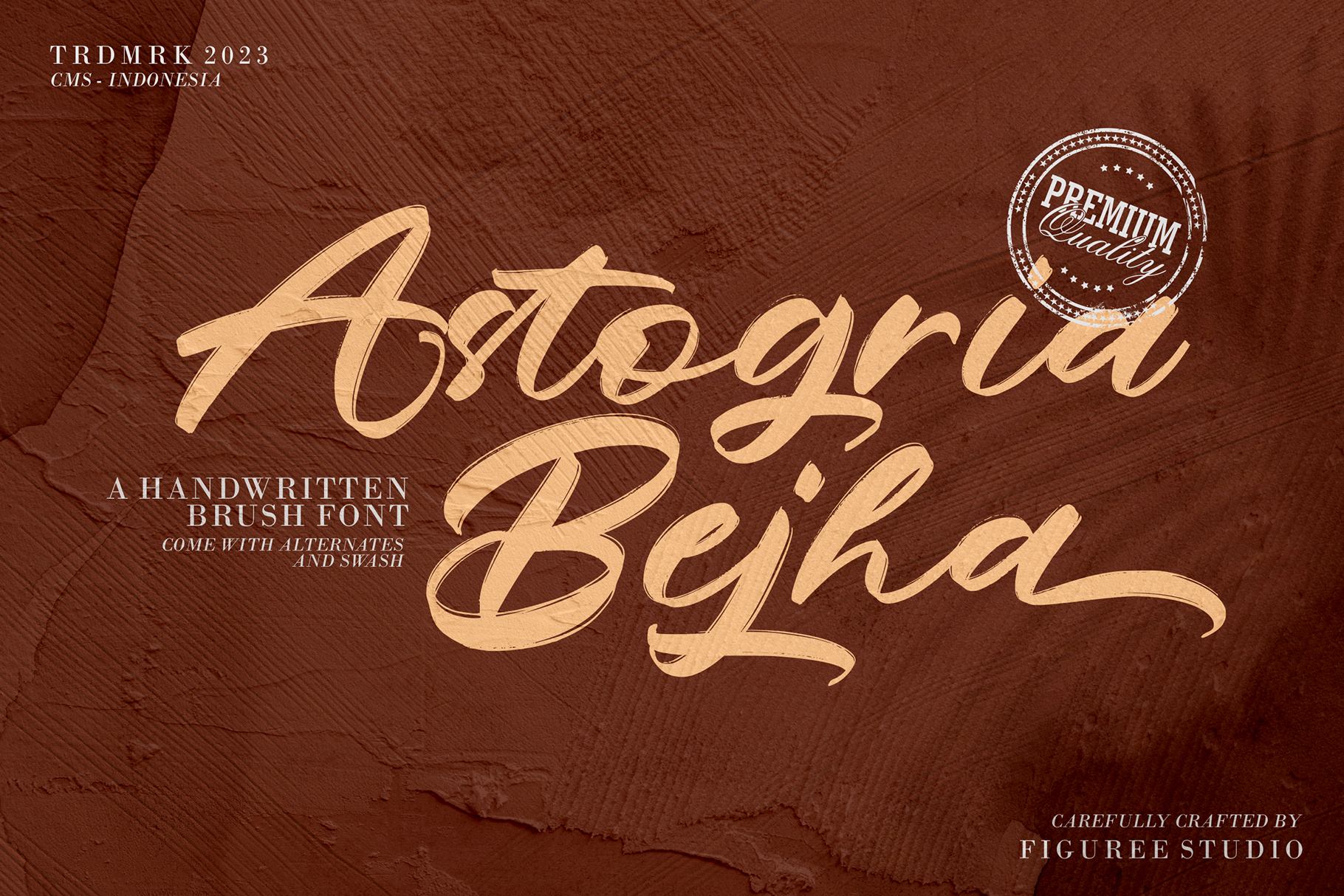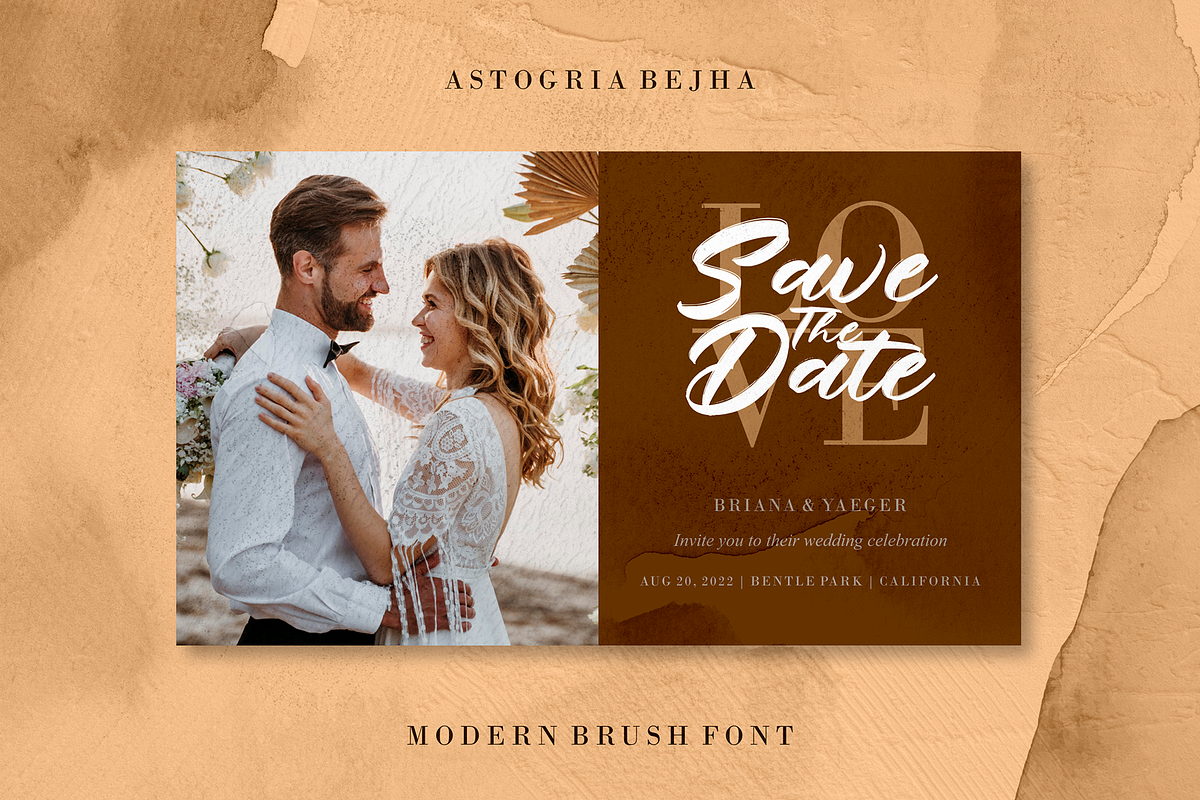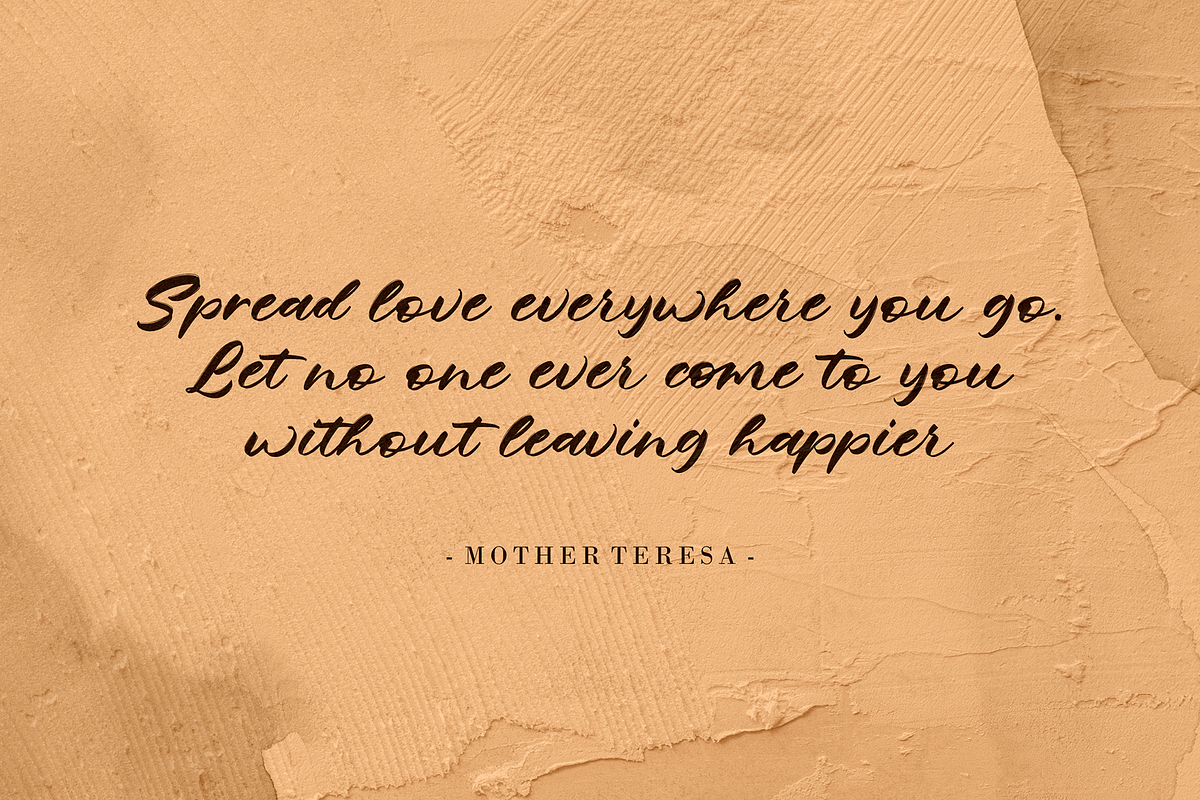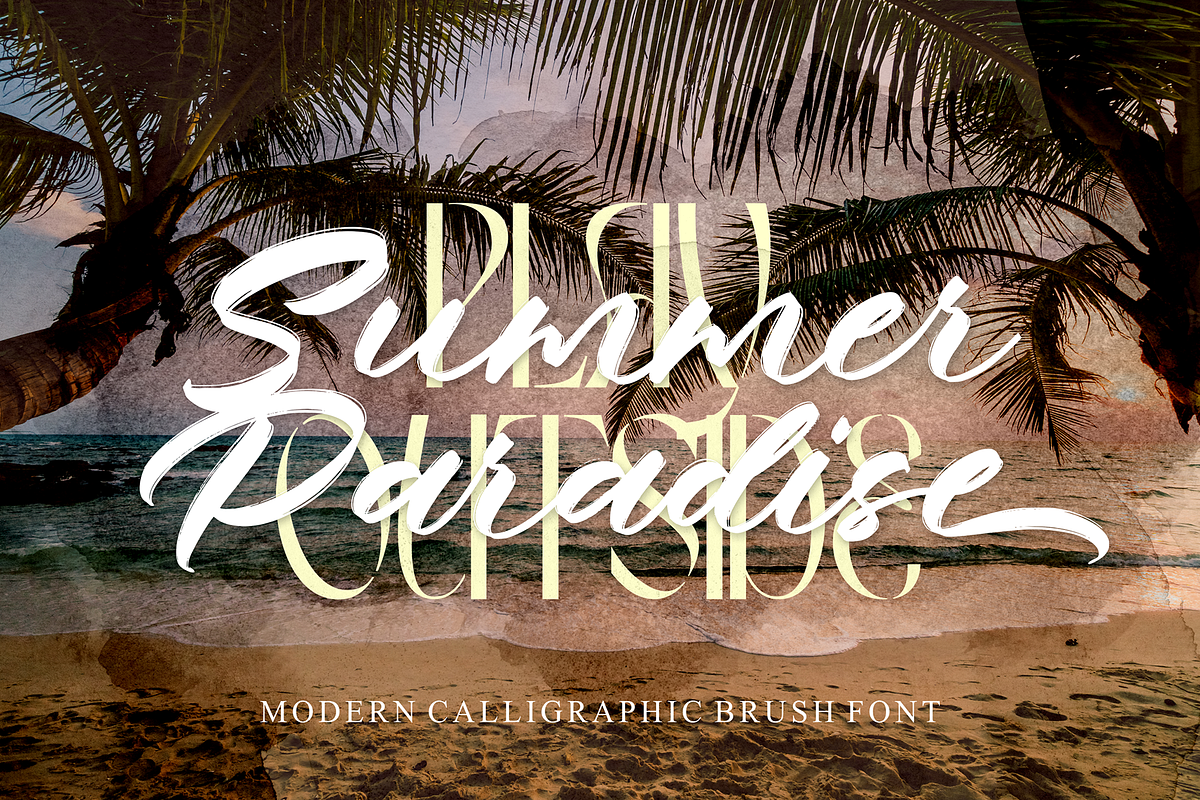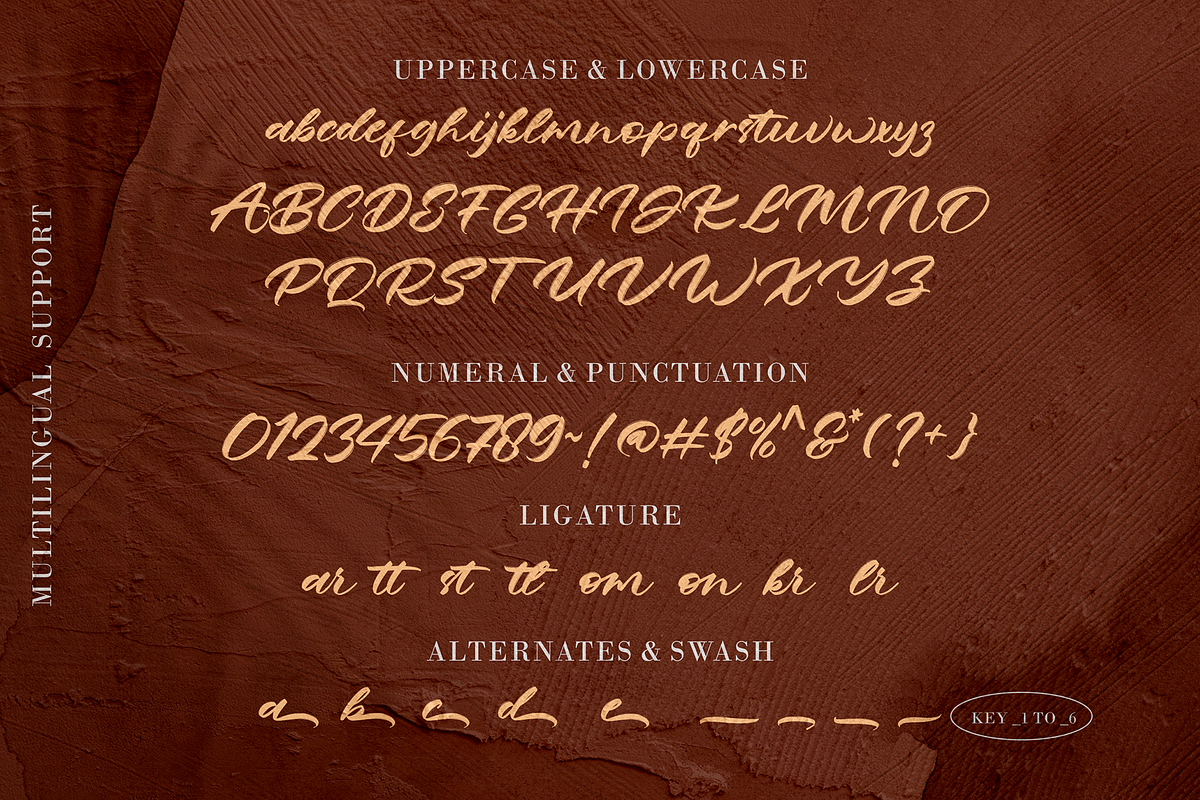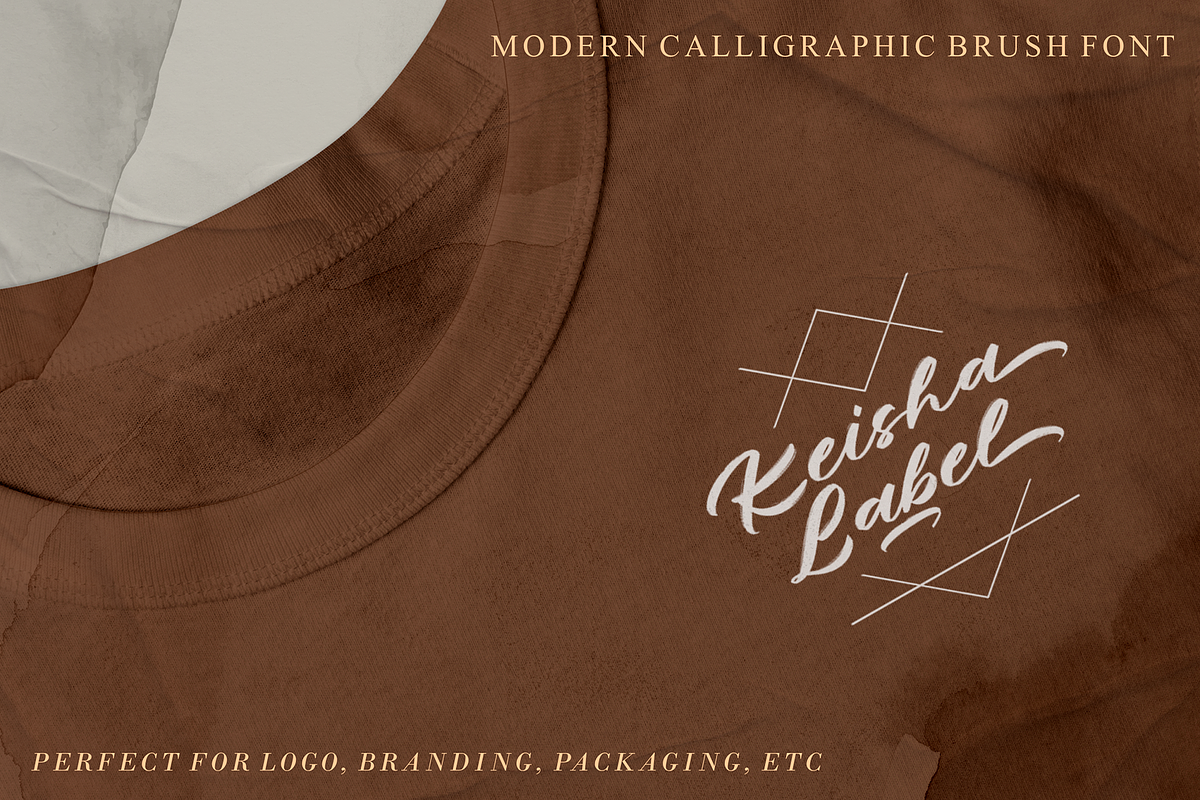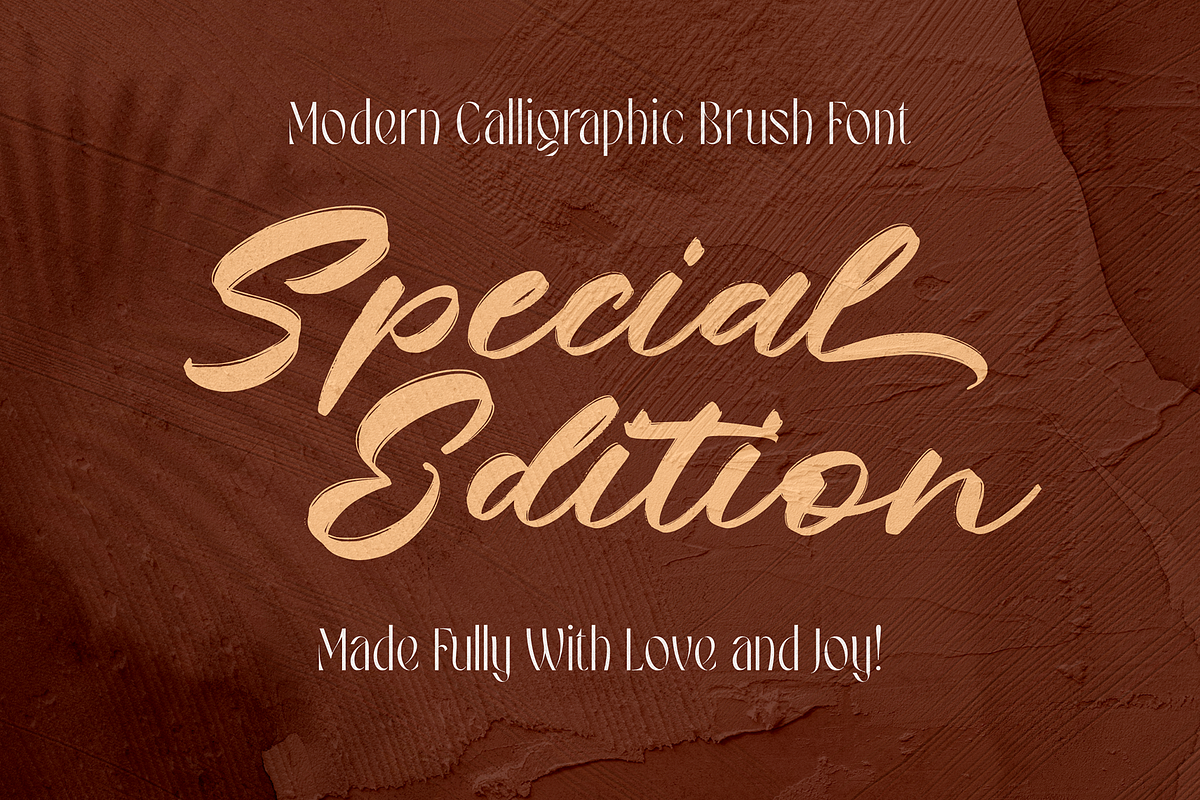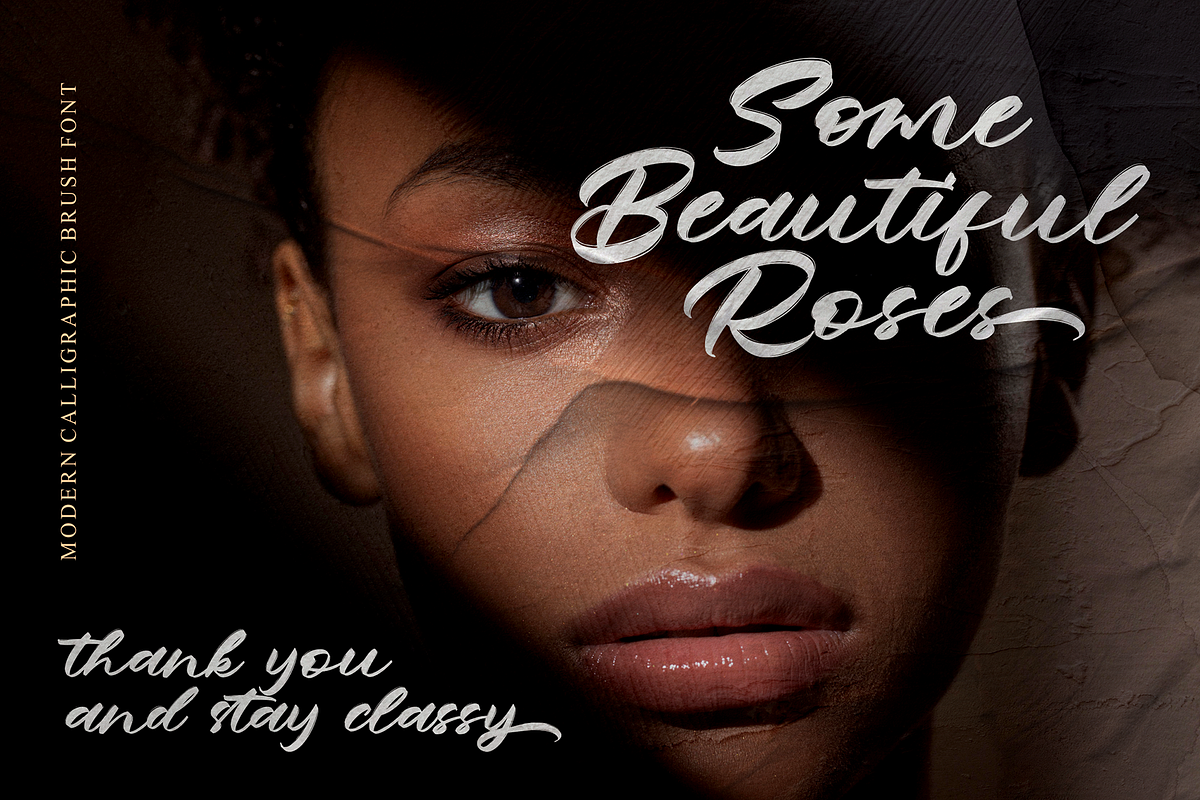
Astogria Bejha - Modern Brush Font
Introducing Astogria Bejha!
Astogria Bejha is modern hand-drawn brush font that combines attractive curves with a fresh urban edge; delivering a stylish brush font that is guaranteed to add an eye-catching appeal to your logo designs, brand imagery, handwritten quotes, product packaging, merchandise, social media post, or website font.
- Number and Punctuation
- Stylistic Alternate
- Versatile for branding, headline, or printing product
- Detailed dry brush markers